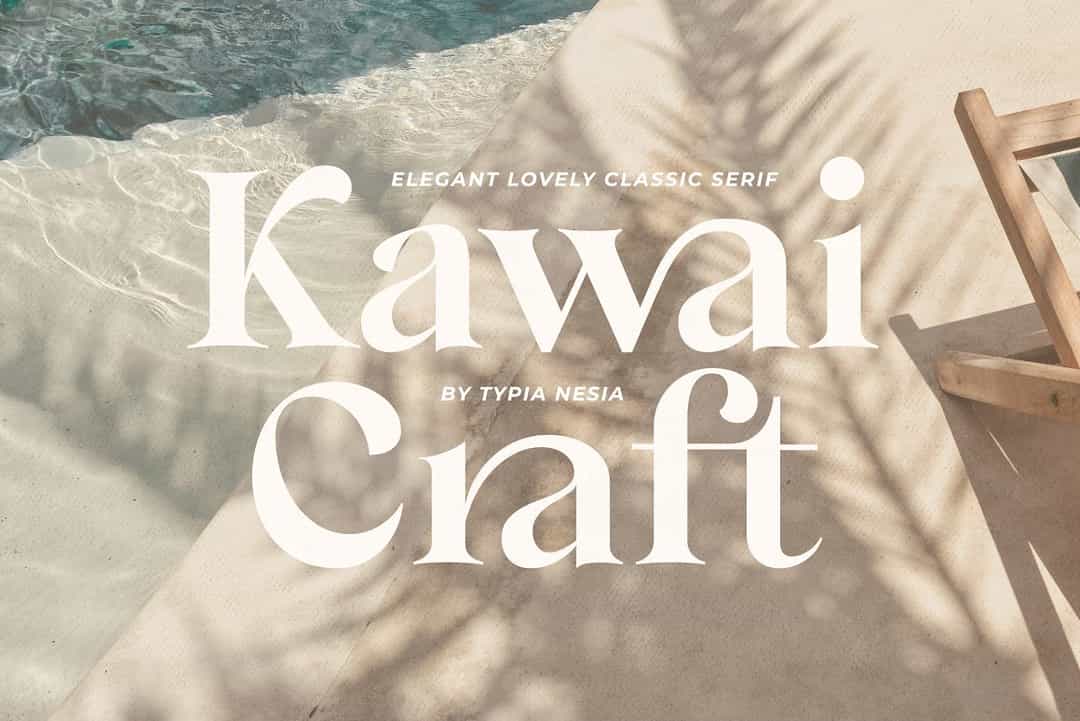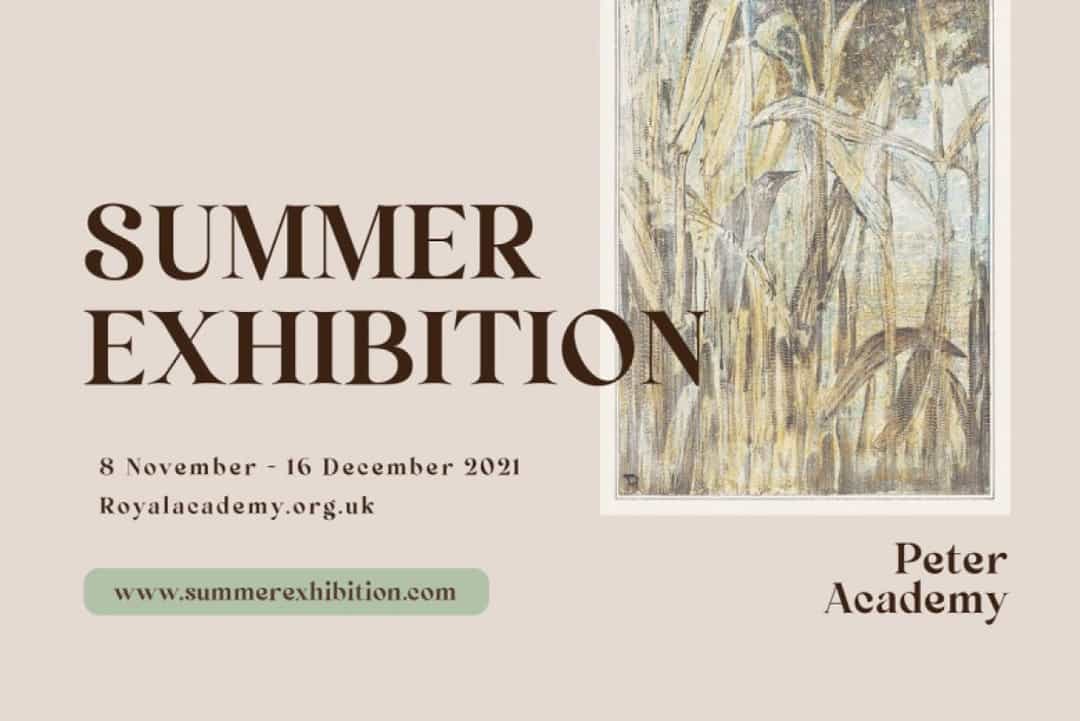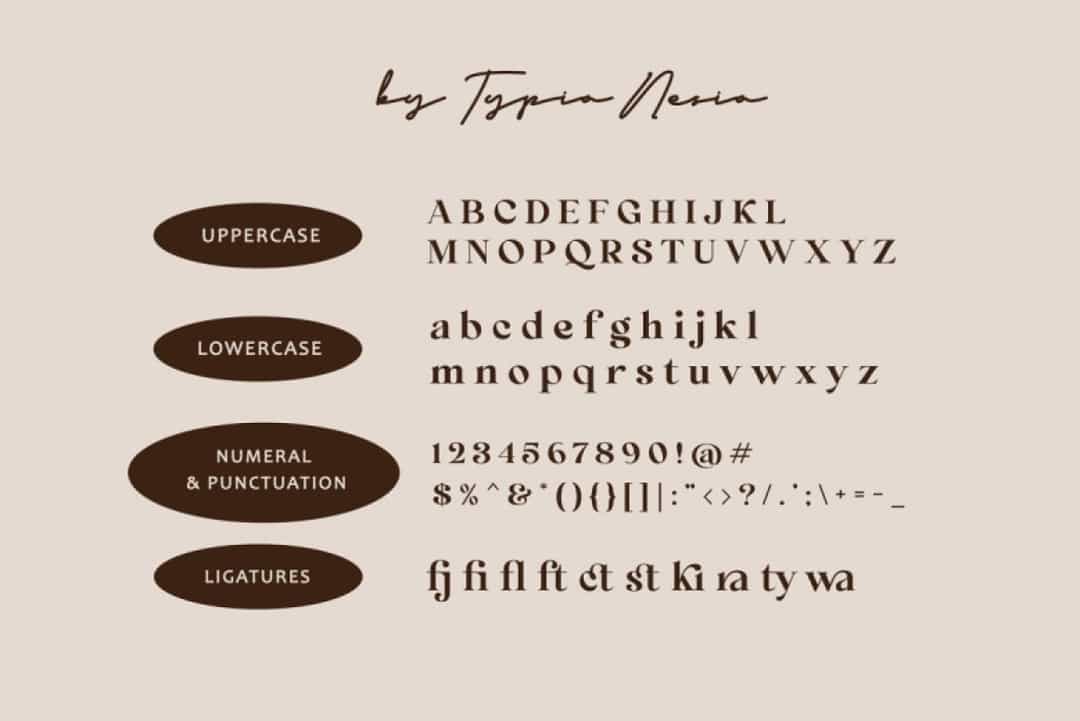
Kawai Craft Serif is a versatile font with multiple Ligatures to mix-and-match to achieve the perfect typography design for all purposes – be it logo branding, modern advertising style, retro garage and adventure/mountain hiking brands, hardcore music movie or animation logos and retro summer posters or book covers titles; editorial designs for blogs, website cards as well as italic handwritten needs are perfect examples of where this font can be applied.